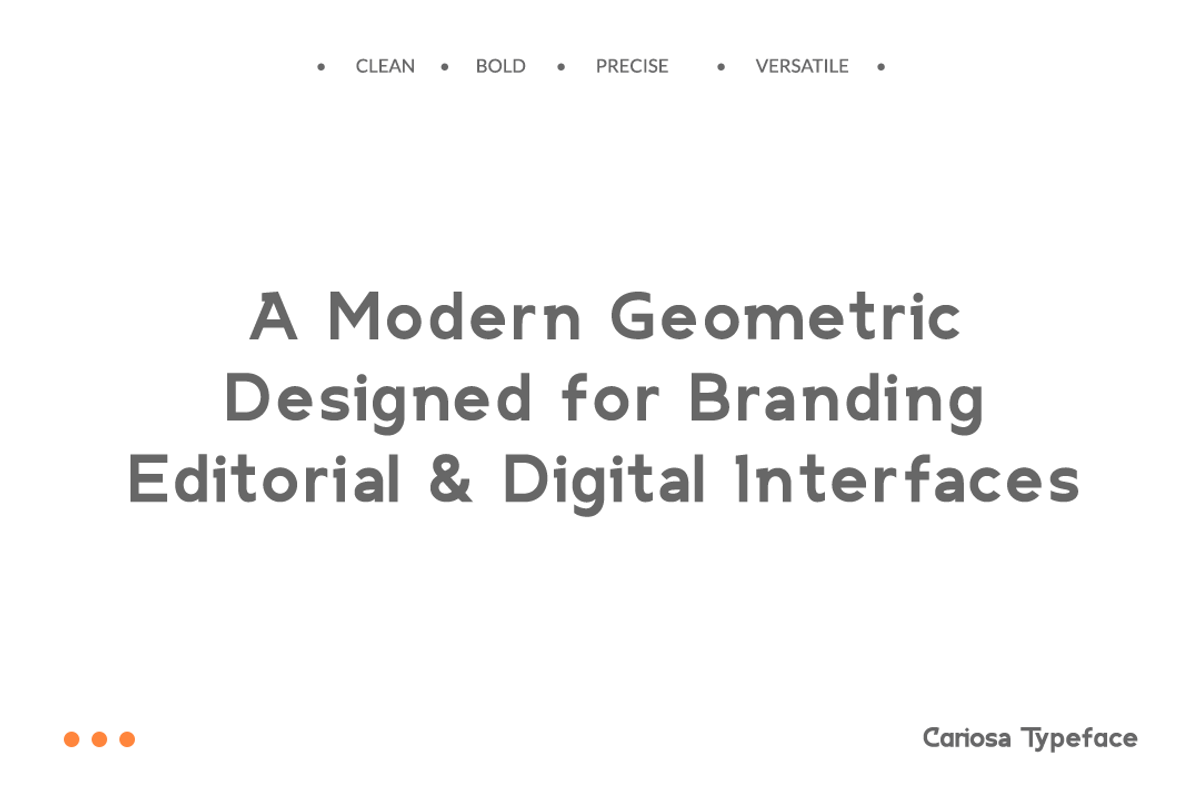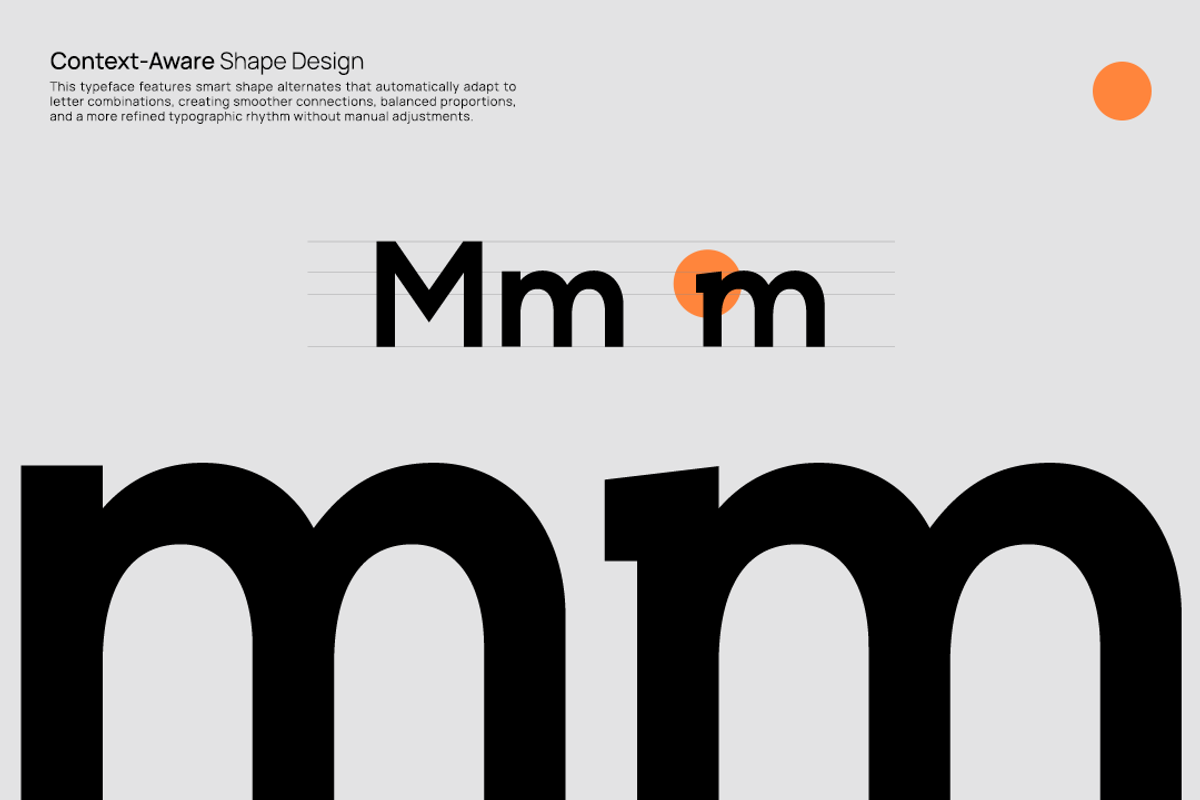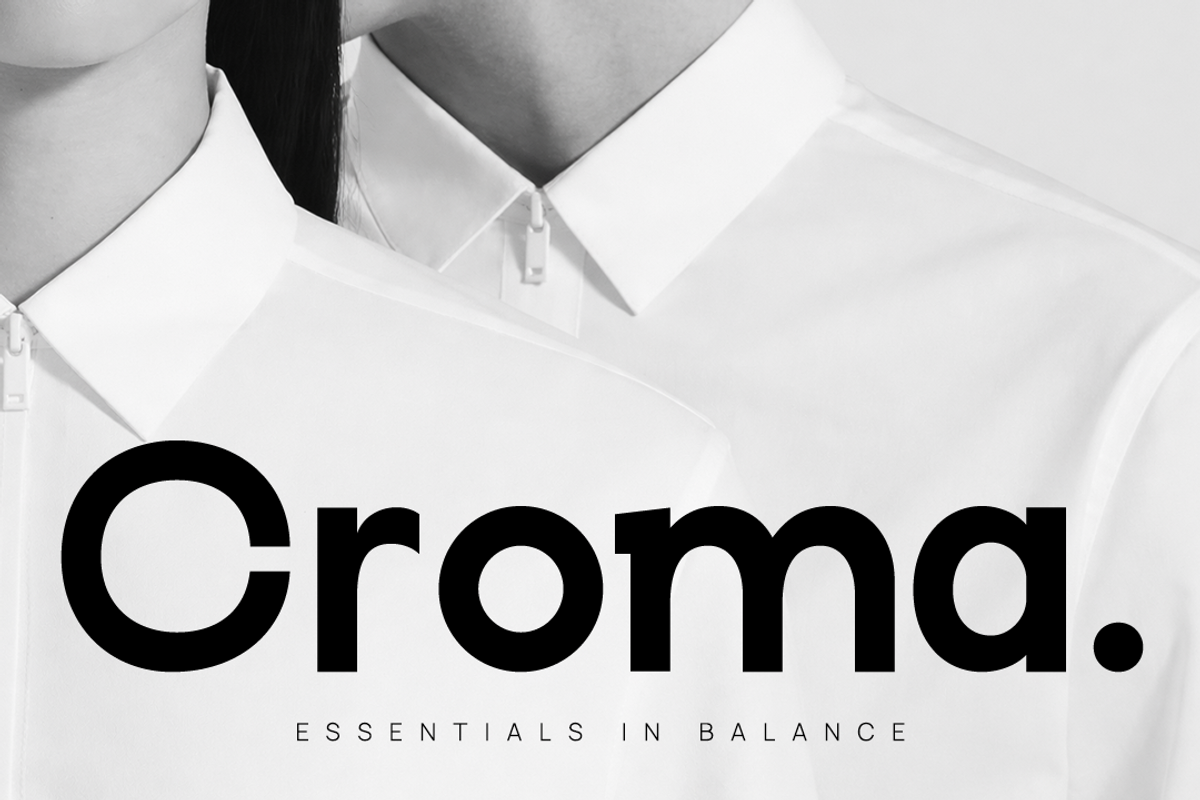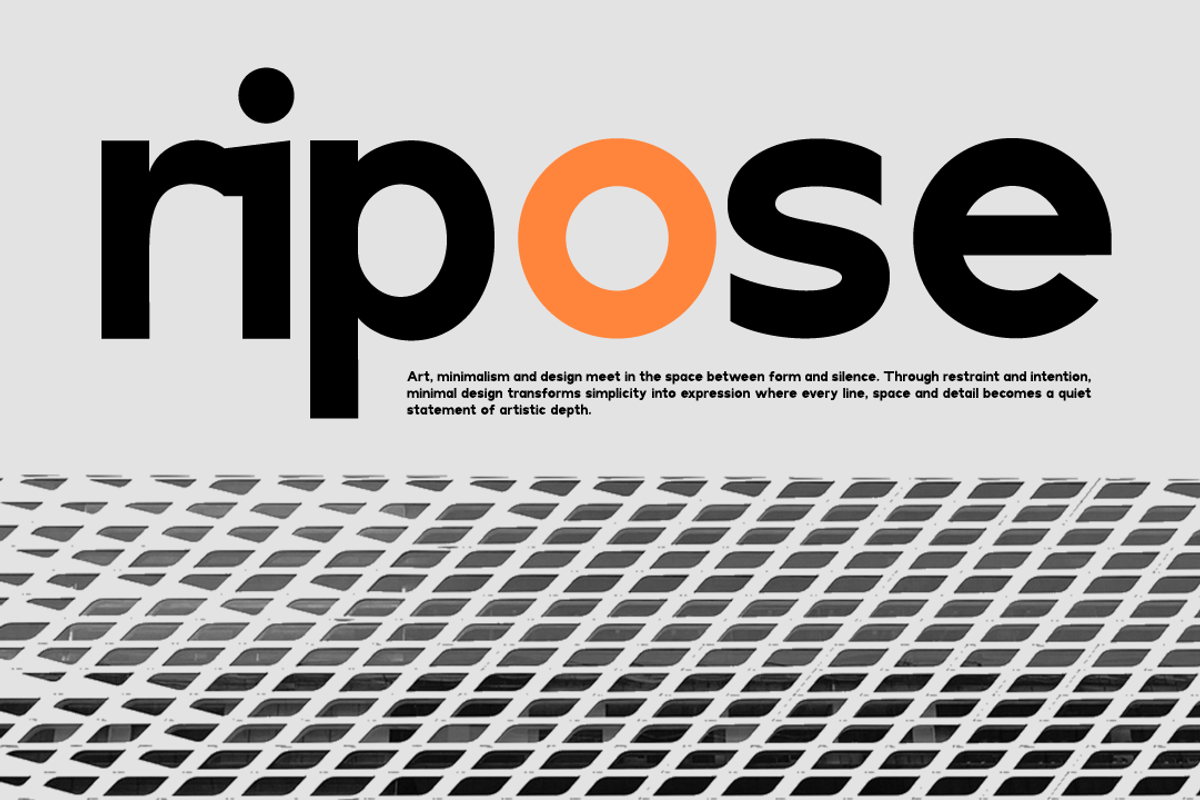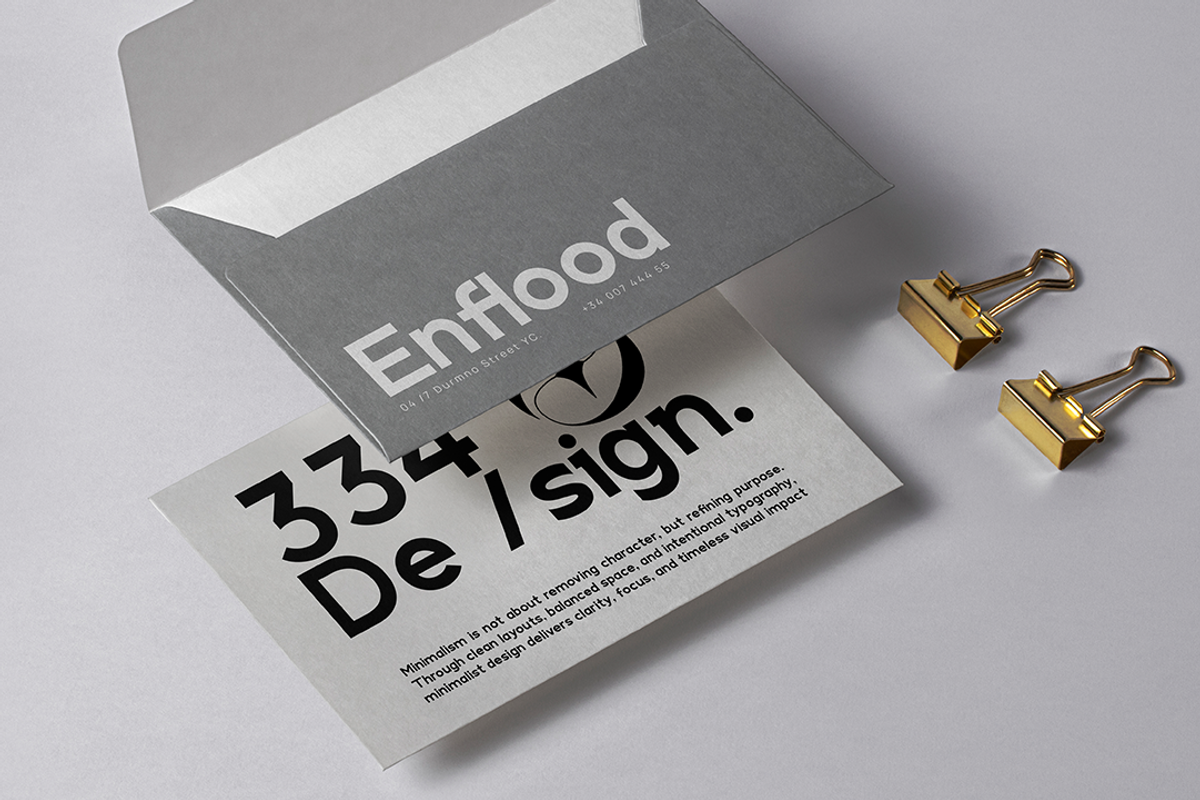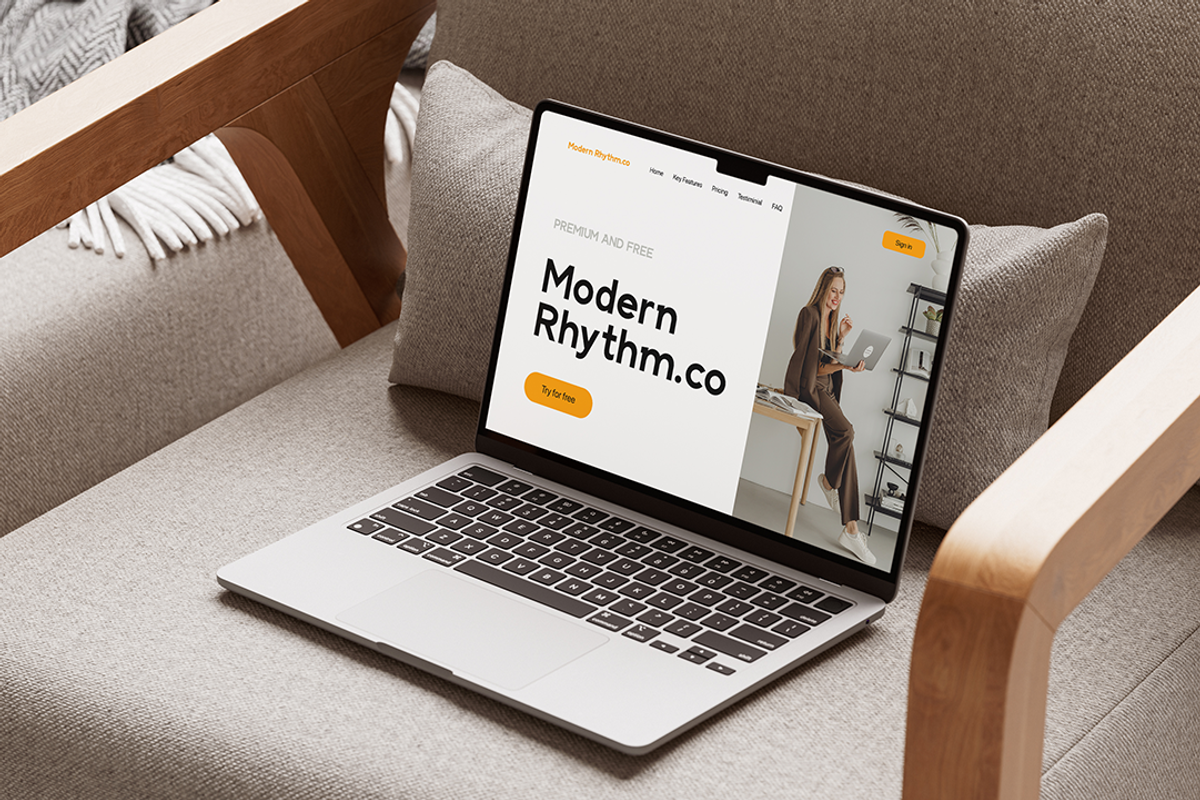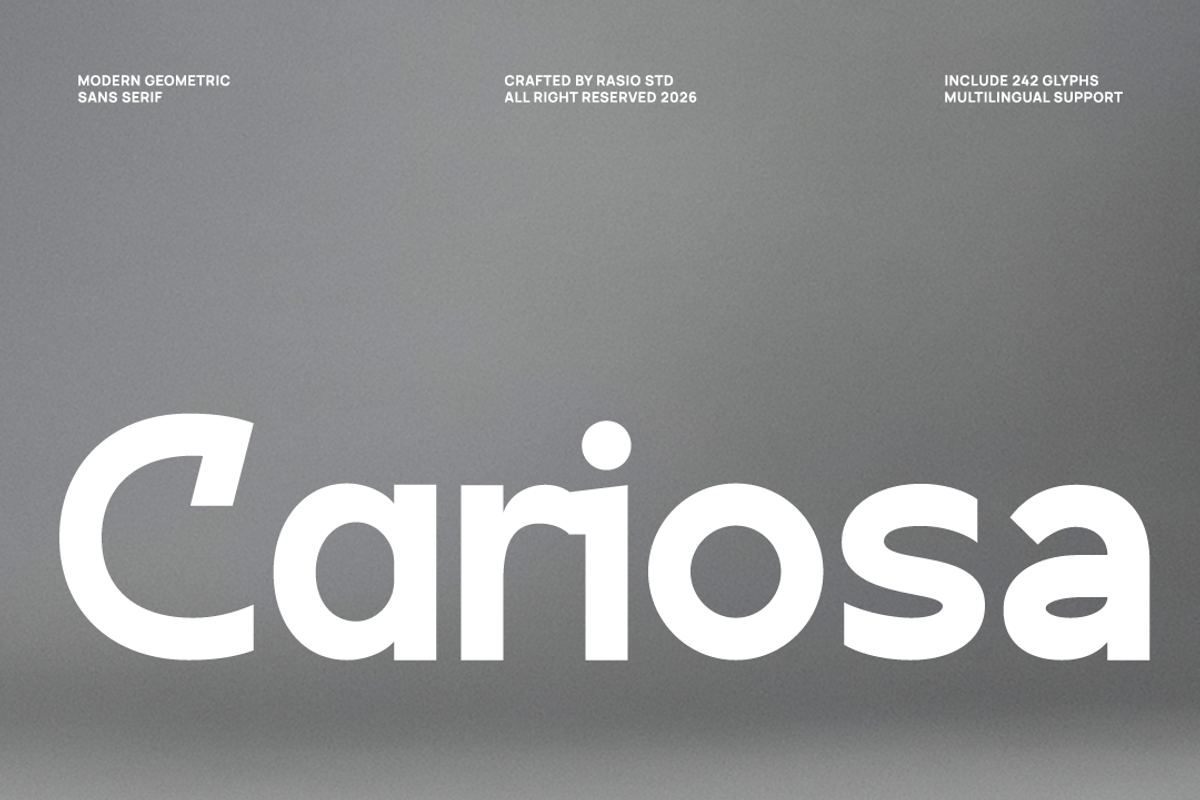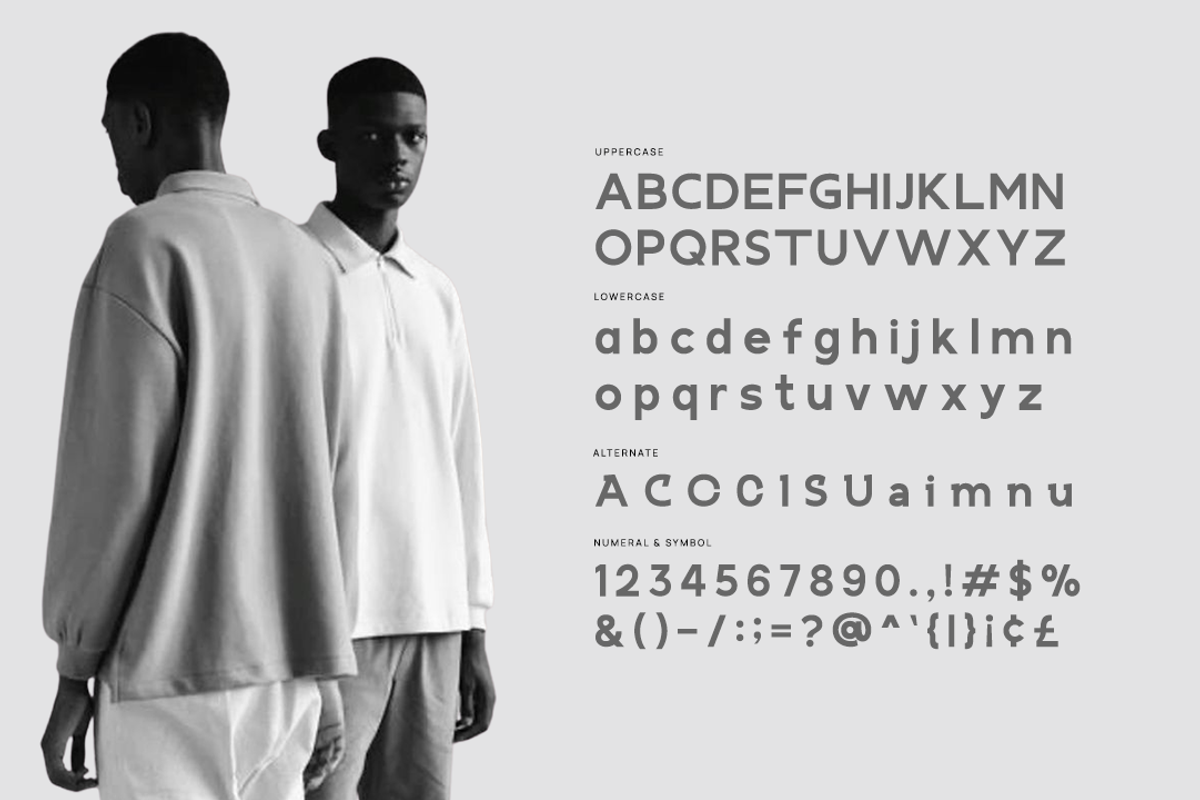
Cariosa Modern Geometric Sans Font
Cariosa is a modern geometric sans serif typeface designed with clarity, balance, and intelligent form adaptation. Built on clean geometric foundations, it features smooth curves, strong proportions, and context-aware shape alternates that automatically adjust to improve letter combinations and overall rhythm. Its minimal yet confident structure delivers a refined and professional tone across both display and functional typography.
Cariosa is ideal for corporate branding, tech startups, digital platforms, UI/UX design systems, presentation decks, fashion lookbooks, modern websites, and minimalist packaging. Its smart alternates and clean geometry make it especially suitable for brands seeking a refined, contemporary, and adaptable visual identity.
- Modern geometric sans serif built on clean, structured proportions
- Context-aware alternates for smoother letter combinations
- Balanced circular forms with subtle optical adjustments
- Consistent stroke weight for a stable, professional tone
- Carefully optimized spacing for clarity in both headlines and body text
- Brand identity systems seeking a clean and professional tone
- UI/UX templates for modern tech products and digital platforms
- Editorial layouts and minimalist publication design
- Product packaging with sleek, contemporary aesthetics
- Social media templates and marketing materials with modern clarity